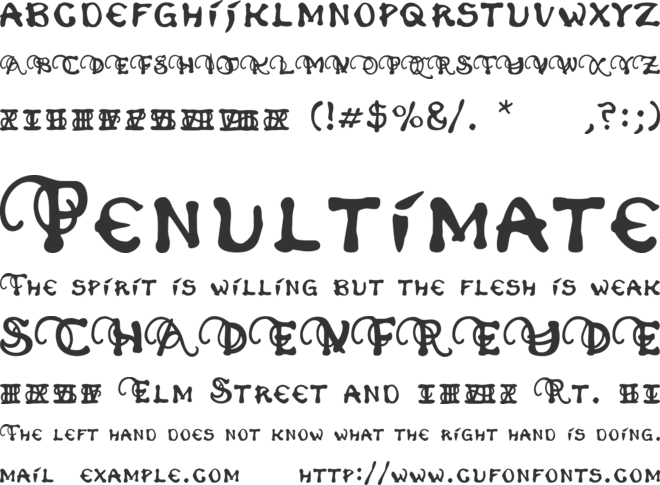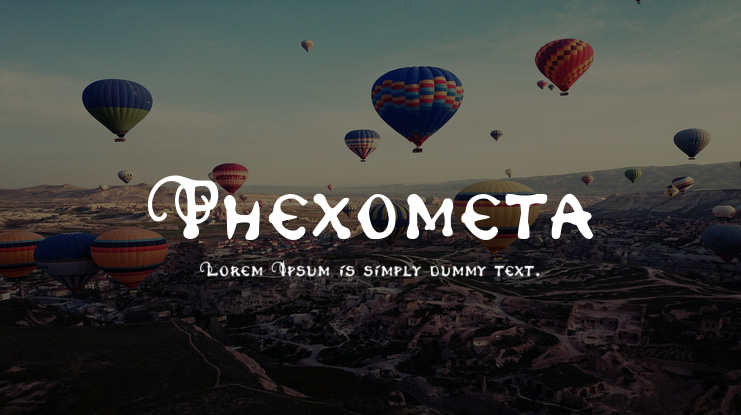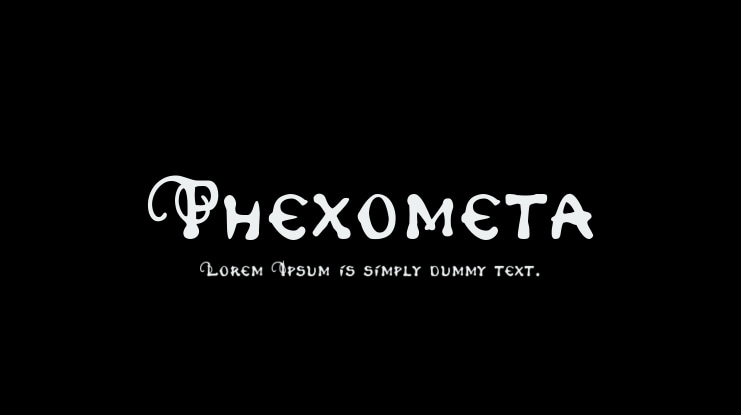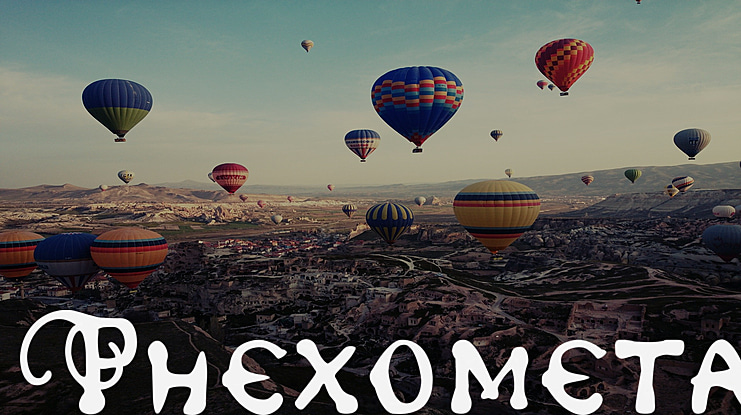
Phexometa Font
Webb, David Weston
This is a fancy horror themed font that I created in reference to the Neverwinter font. It works very well in a wide variety of applications with any horror/Halloween theme.